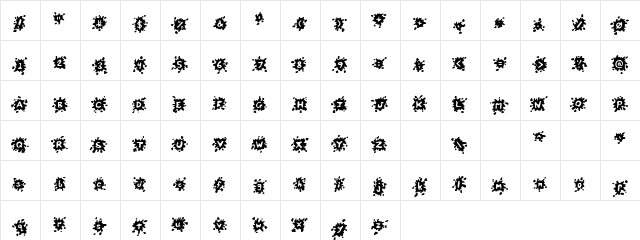
Cloudy Regular
Design Context for Cloudy Typeface
Cloudy is a composed and adaptable typeface that performs quietly and consistently across a wide range of design contexts.